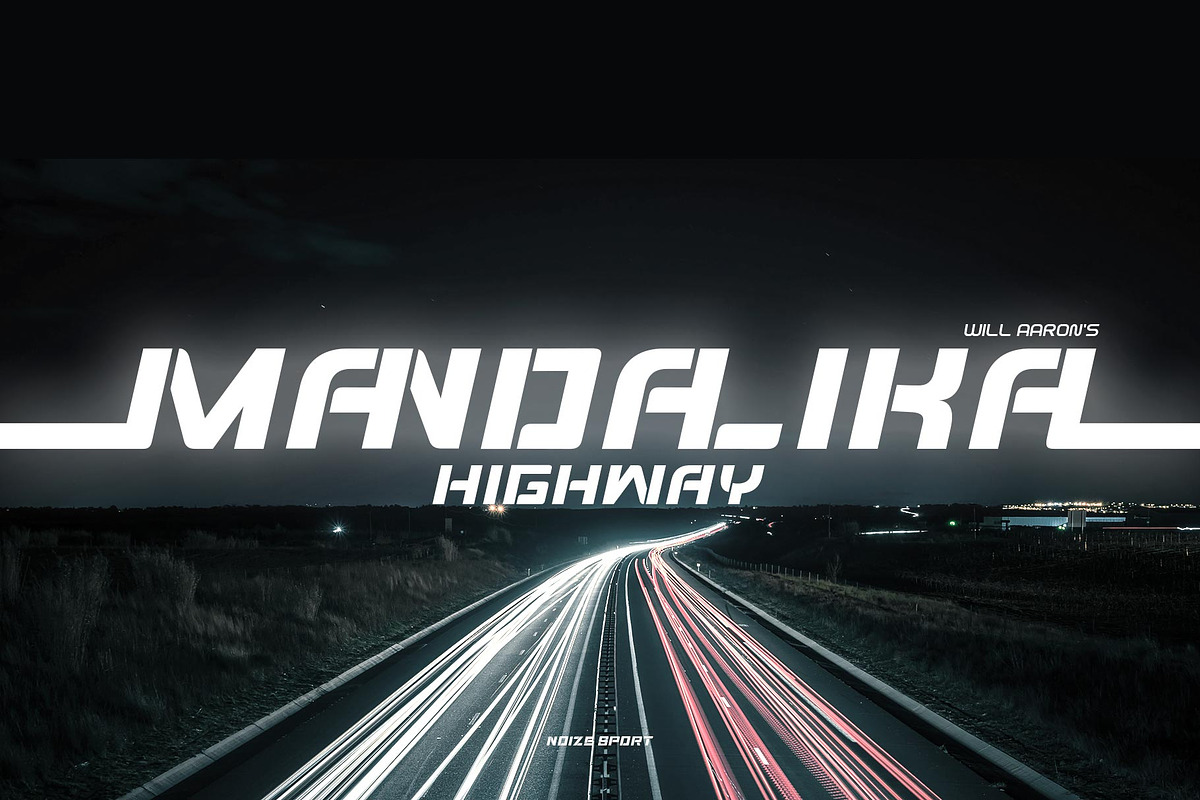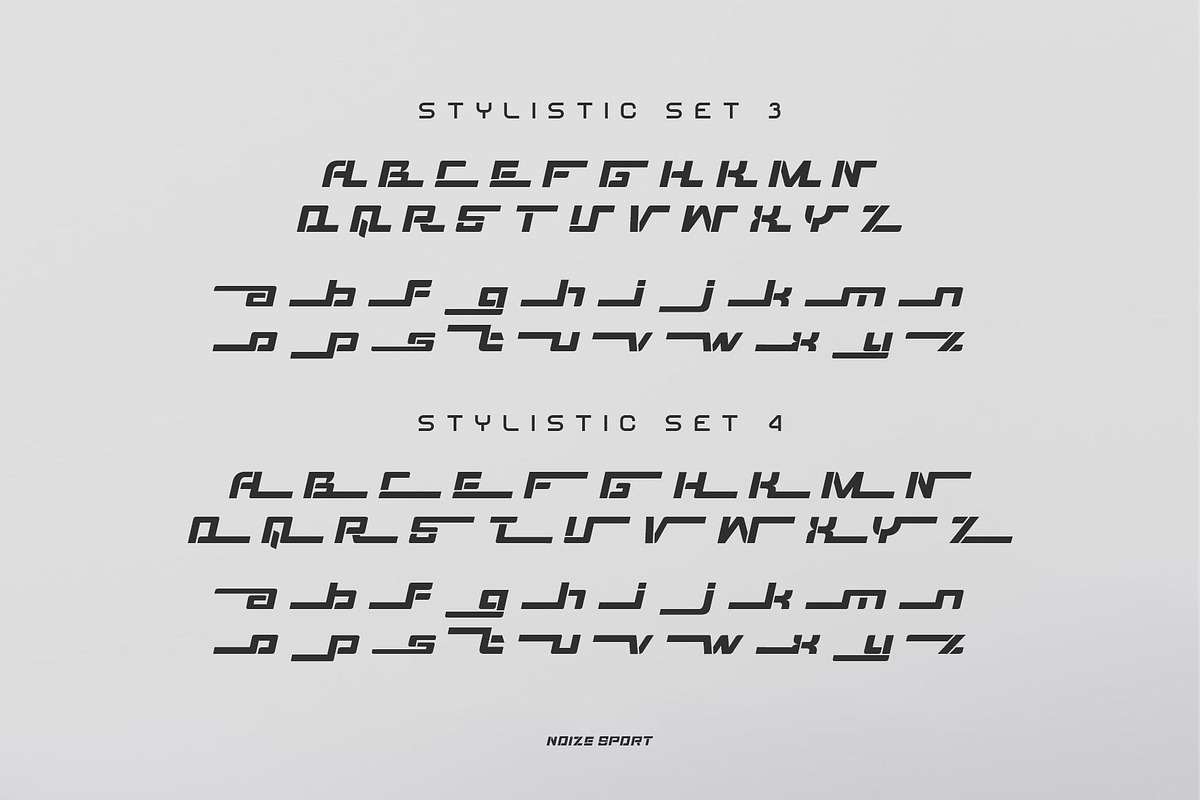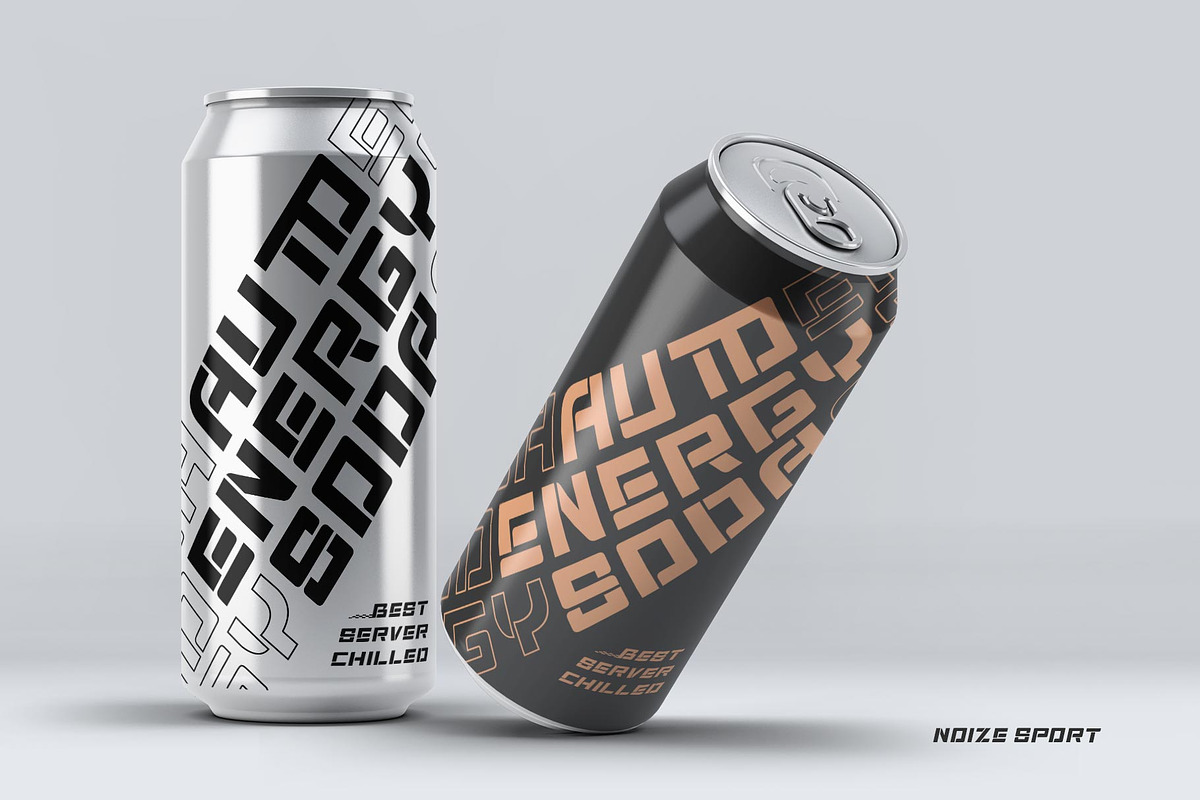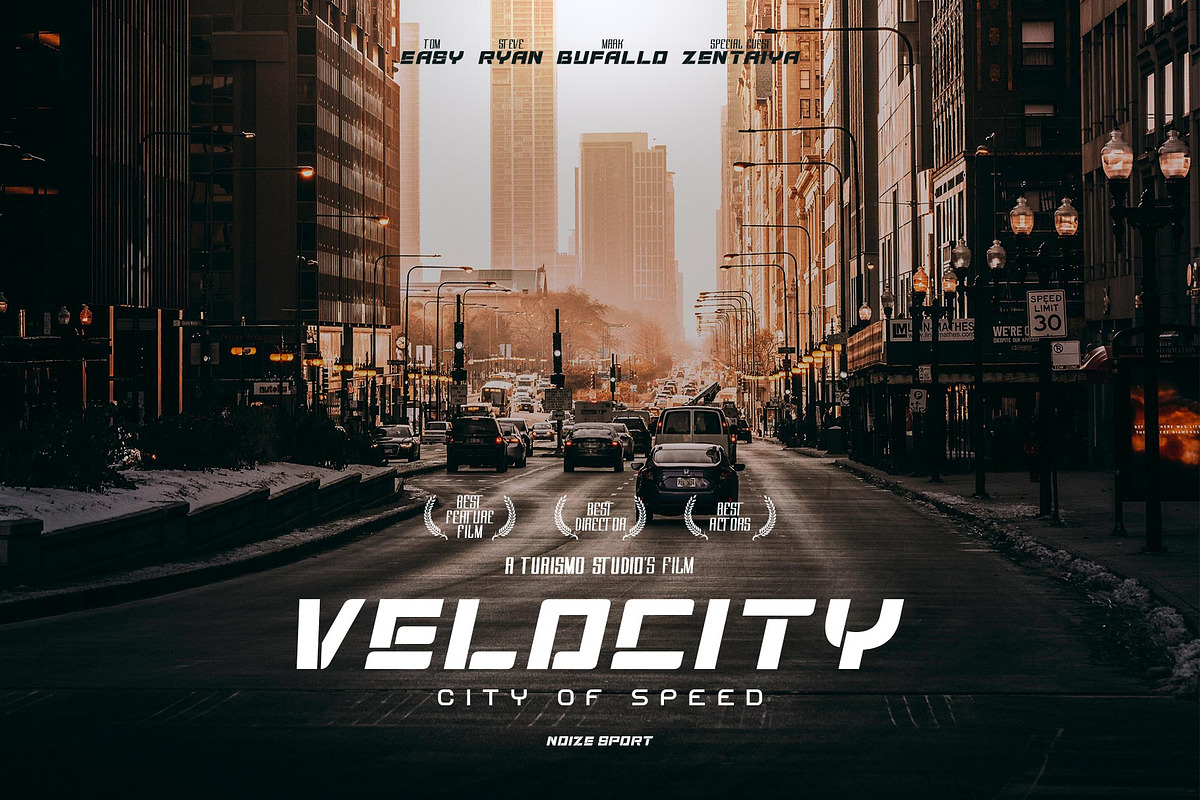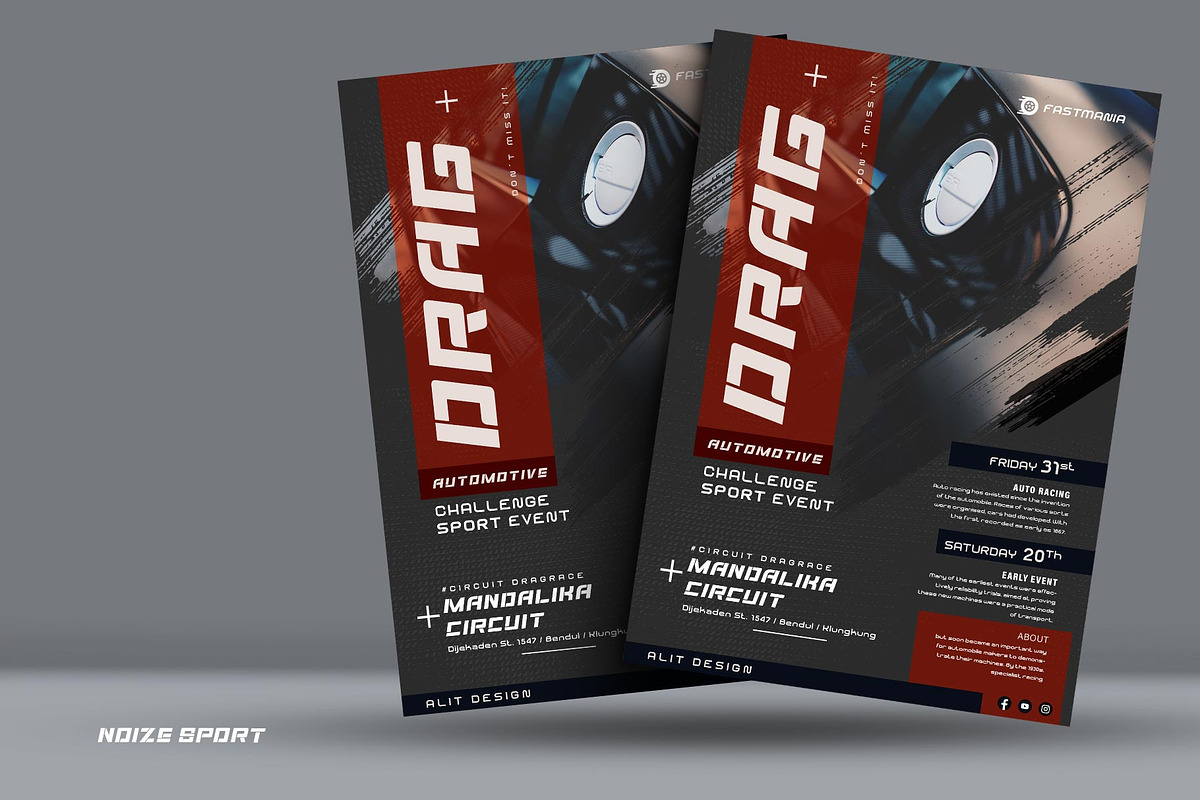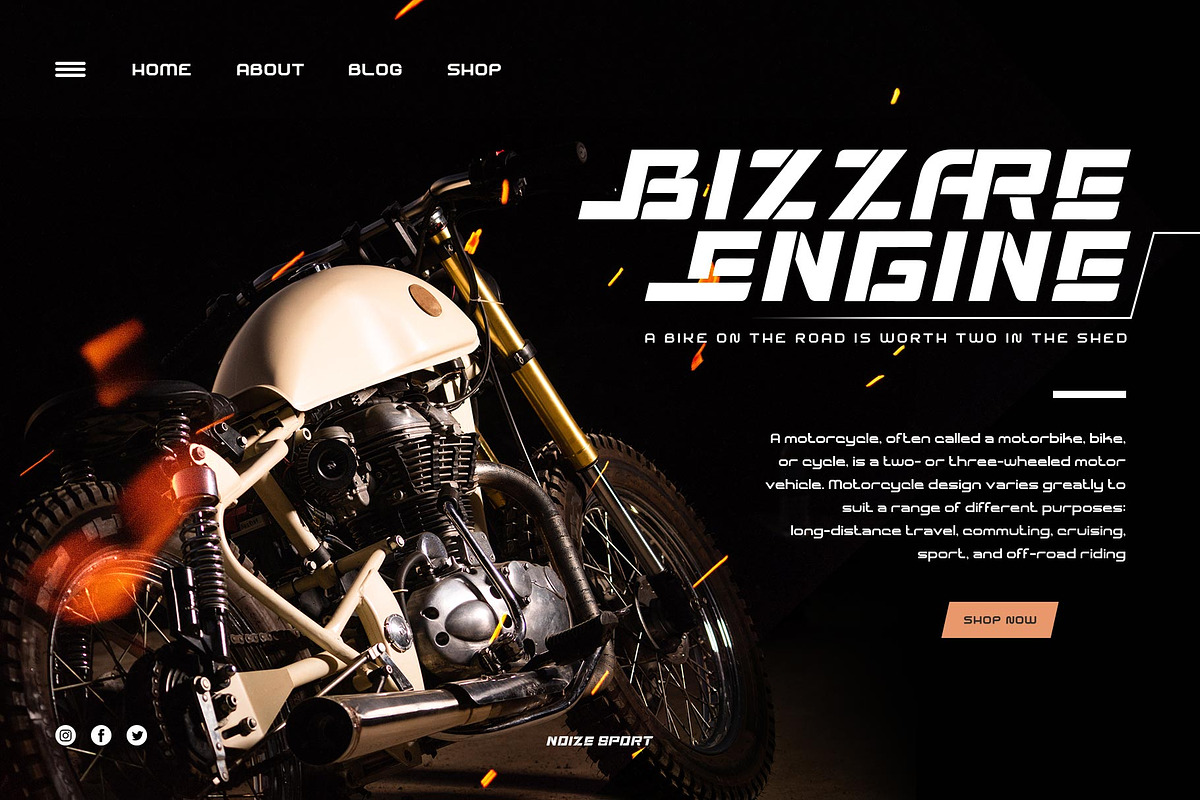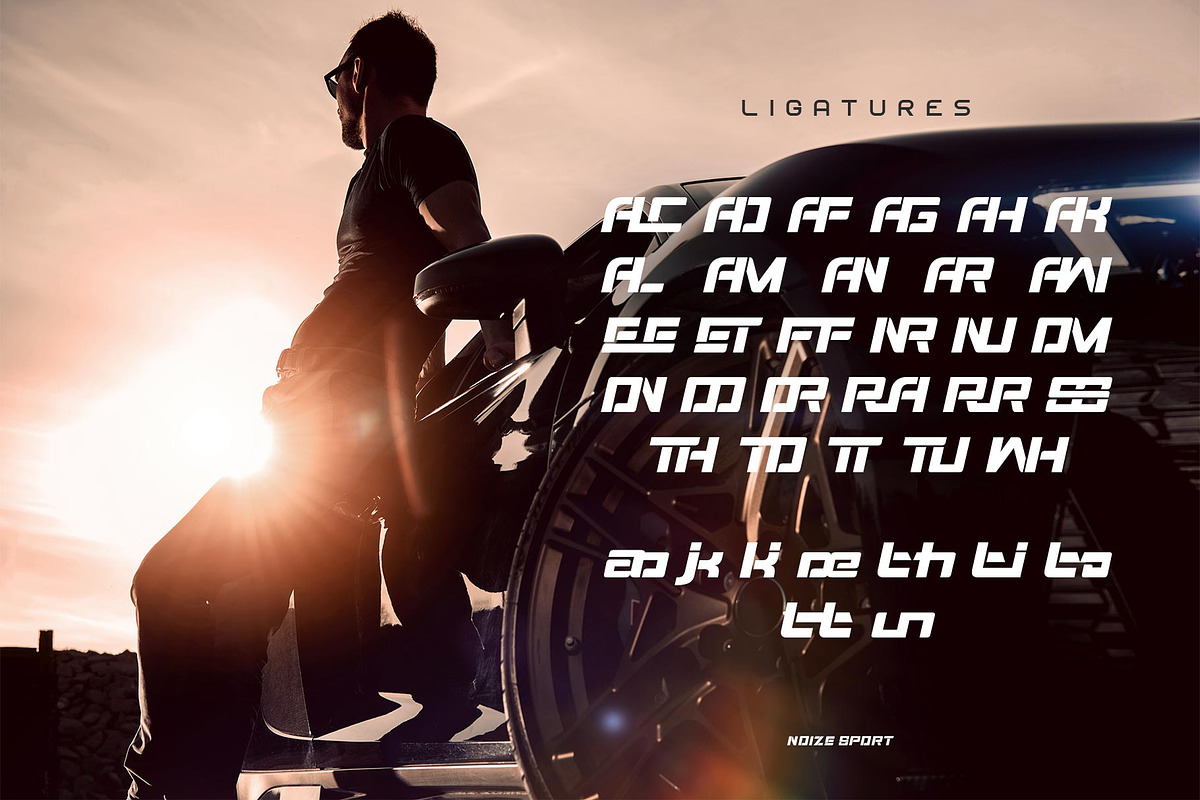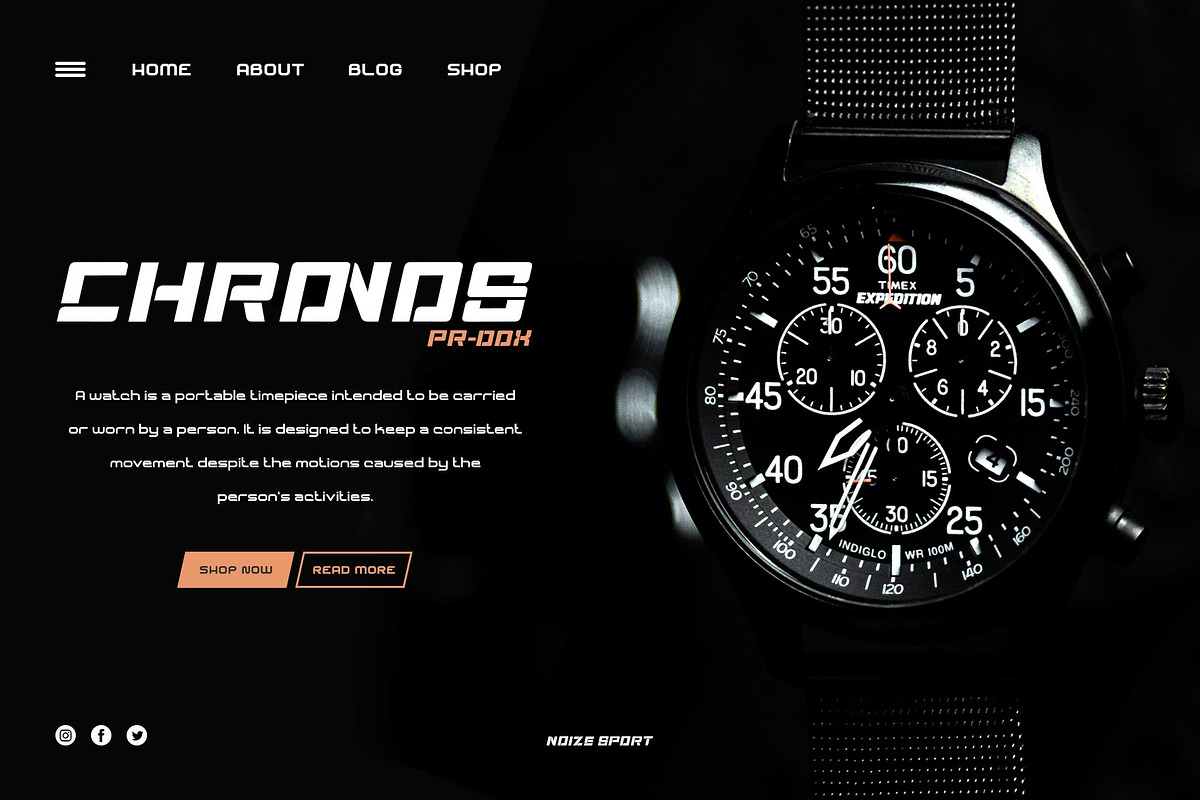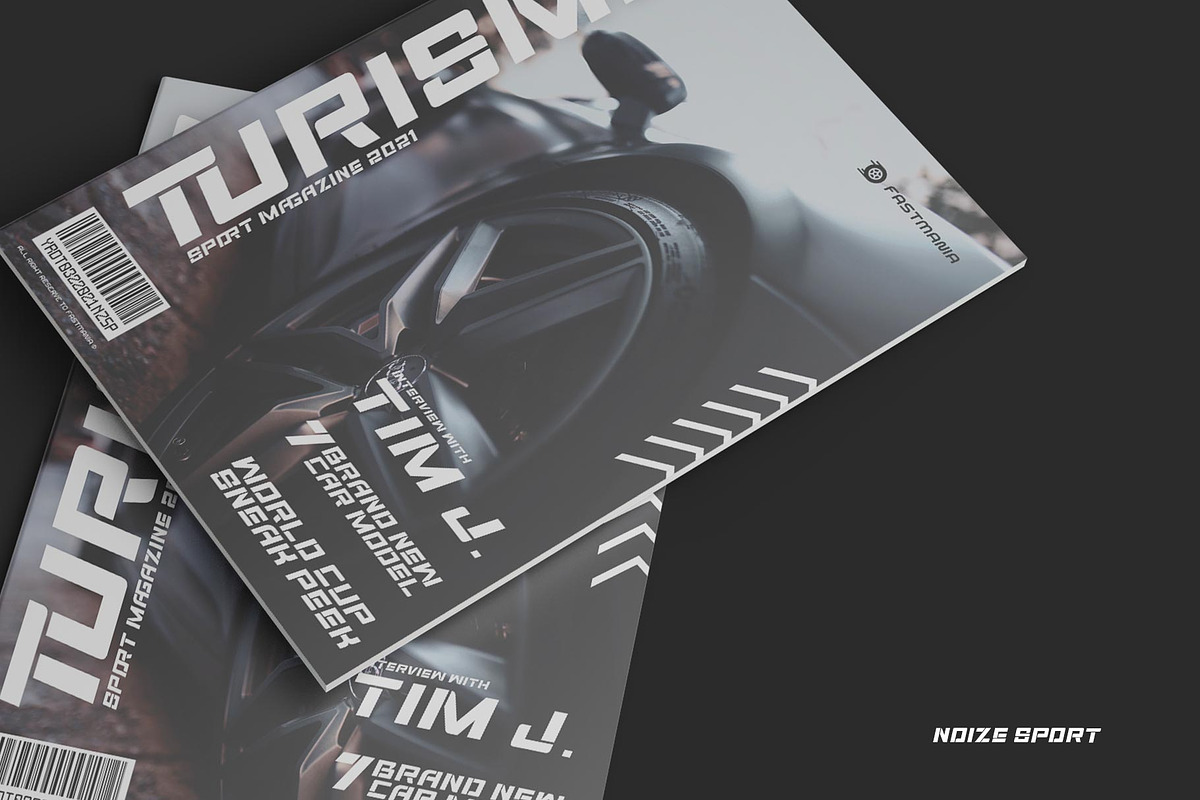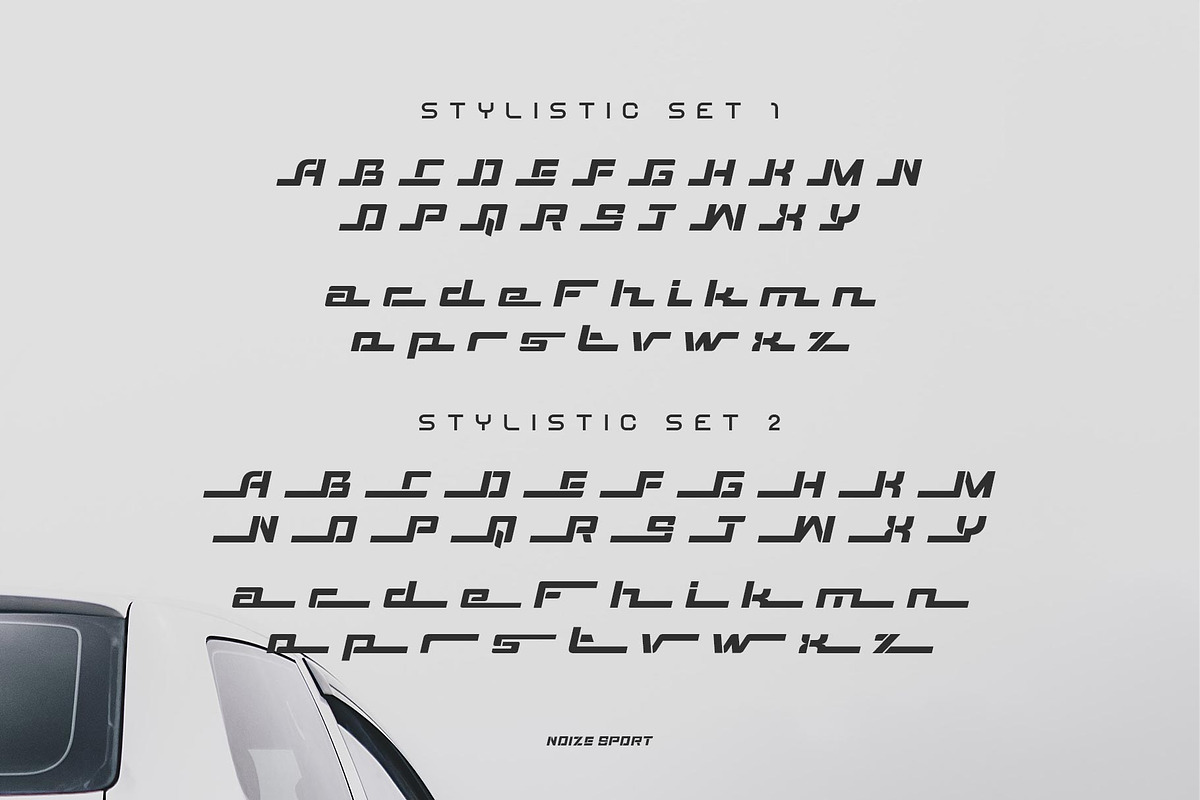
Noize Sport Typeface
Introducing Noize Sport Typeface
🏁The Noize Sport Typeface 🏁 is inspired by the sporty racing display font. This bold and strong font with an impression of speed is perfect for making sports racing themed designs. Can be used for making logo designs, car stickers, racing event titles and so on with sport race themes.
In addition to the regular Start Race, there is also an italic and stencil version which makes it look faster and cooler.